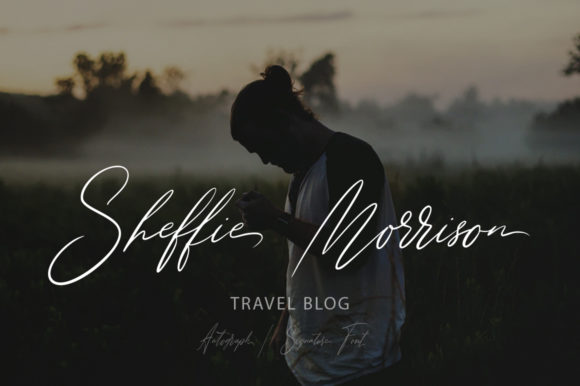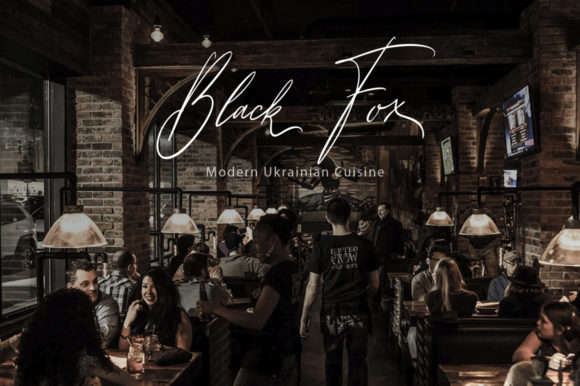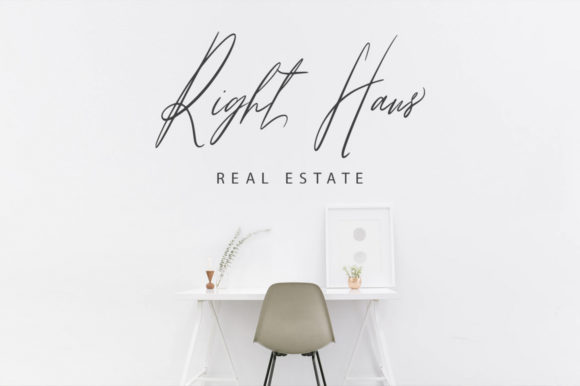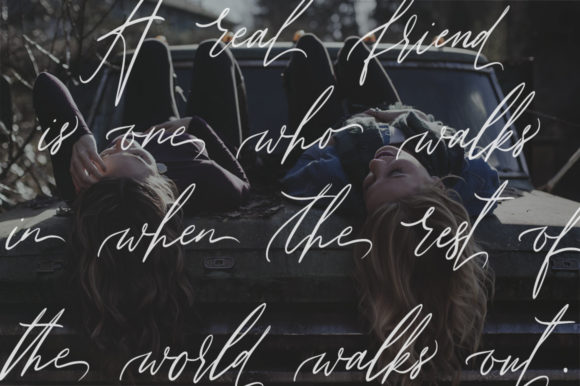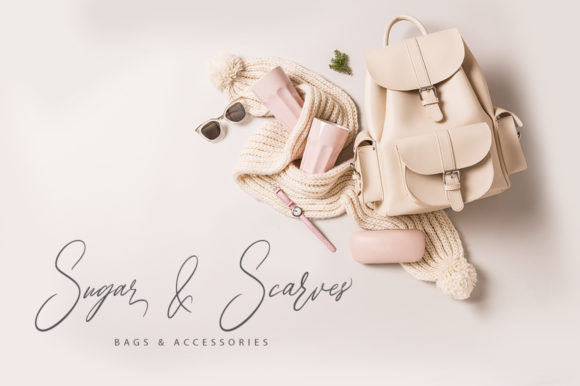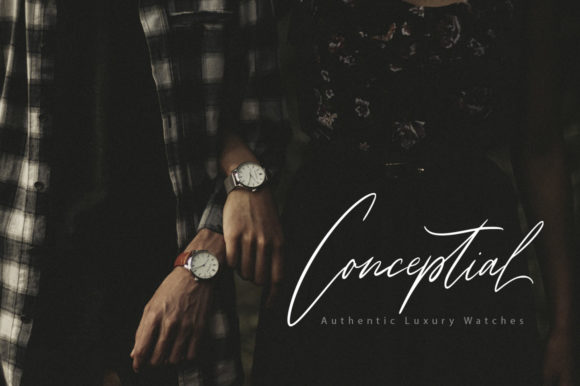
Introducing Autograph Font: Elevate Your Designs with a Lovely Casual Handwritten Style
Are you tired of using the same old fonts in your designs? Do you want to add a personal touch to your projects? Look no further than Autograph Font, a beautiful casual handwritten font that’s perfect for designers and crafters alike. With its tons of ligatures and swashes, Autograph Font is sure to take your projects to the next level!
What is Autograph Font?
Autograph Font is a carefully crafted handwritten font that’s designed to bring a touch of elegance and sophistication to your designs. Its casual and relaxed style makes it perfect for a wide range of projects, from wedding invitations and party decorations to branding and marketing materials.
One of the standout features of Autograph Font is its extensive collection of ligatures and swashes. Ligatures are special characters that combine two or more letters into a single glyph, creating a more fluid and natural look. Swashes, on the other hand, are decorative flourishes that can be added to letters to give them an extra touch of elegance. With Autograph Font, you’ll have access to tons of ligatures and swashes that will help you create unique and eye-catching designs.
Features of Autograph Font
So, what makes Autograph Font so special? Here are just a few of its key features:
• Handwritten style: Autograph Font has a beautiful, casual handwritten style that’s perfect for creating personal and inviting designs.
• Tons of ligatures and swashes: With Autograph Font, you’ll have access to a vast collection of ligatures and swashes that will help you add a touch of elegance and sophistication to your designs.
Uses of Autograph Font
So, what can you use Autograph Font for? The possibilities are endless! Here are just a few ideas to get you started:
• Wedding invitations and decorations: Autograph Font is perfect for creating beautiful and elegant wedding invitations, decorations, and other materials.
• Branding and marketing materials: Use Autograph Font to create unique and eye-catching branding and marketing materials, such as business cards, brochures, and flyers.
• Party decorations: Autograph Font is great for creating fun and festive party decorations, such as banners, garlands, and gift tags.
• Digital designs: Autograph Font can be used for digital designs, such as social media graphics, blog posts, and email newsletters.
Tips for Using Autograph Font
Here are a few tips for getting the most out of Autograph Font:
• Experiment with different sizes and colors: Autograph Font looks great in a variety of sizes and colors, so don’t be afraid to experiment and find the perfect combination for your design.
• Use ligatures and swashes to add elegance: Autograph Font’s ligatures and swashes are designed to add a touch of elegance and sophistication to your designs. Use them to create beautiful and eye-catching text.
• Pair with other fonts: Autograph Font pairs well with a variety of other fonts, so don’t be afraid to experiment and find the perfect combination for your design.
In conclusion, Autograph Font is a beautiful and versatile handwritten font that’s perfect for designers and crafters alike. With its tons of ligatures and swashes, Autograph Font is sure to take your projects to the next level. Whether you’re creating wedding invitations, branding materials, or digital designs, Autograph Font is a great choice. So why wait? Download Autograph Font today and start creating stunning designs!